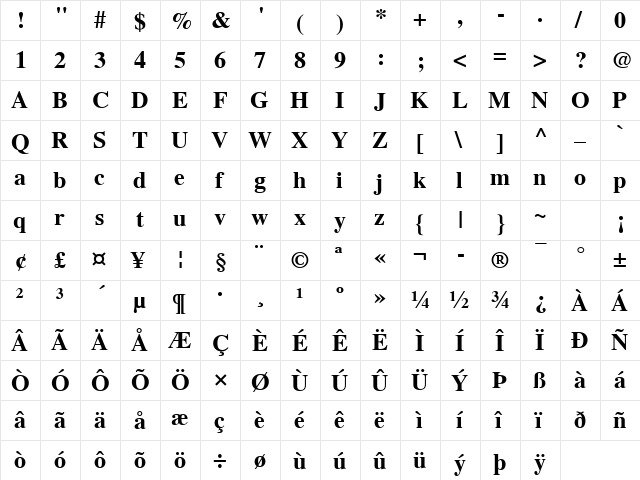
NimbusRomNo9LUN Bold
Design Context for NimbusRomNo9LUN Typeface
NimbusRomNo9LUN takes a measured approach to typography — its balanced proportions and neutral character make it a reliable workhorse for both digital and print work. The heavy weight commands attention and anchors typographic hierarchies.